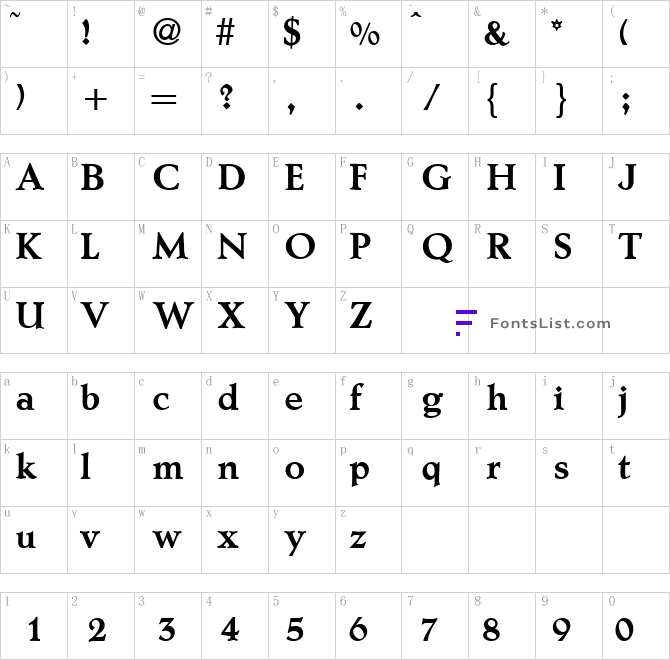
- Font Name:Aesop
Aesop-Bold-copy-1-.ttf is a very beautiful artistic font, Aesop-Bold-copy-1-.ttf is widely used in the design and printing of various books and pictures,Aesop-Bold-copy-1-.ttf has a strong visual impact,Aesop-Bold-copy-1-.ttf is a commonly used font in newspapers, magazines and books, and is used in posters, e-commerce Poster design, store design, logo design, font design and other fields.Aesop-Bold-copy-1-.